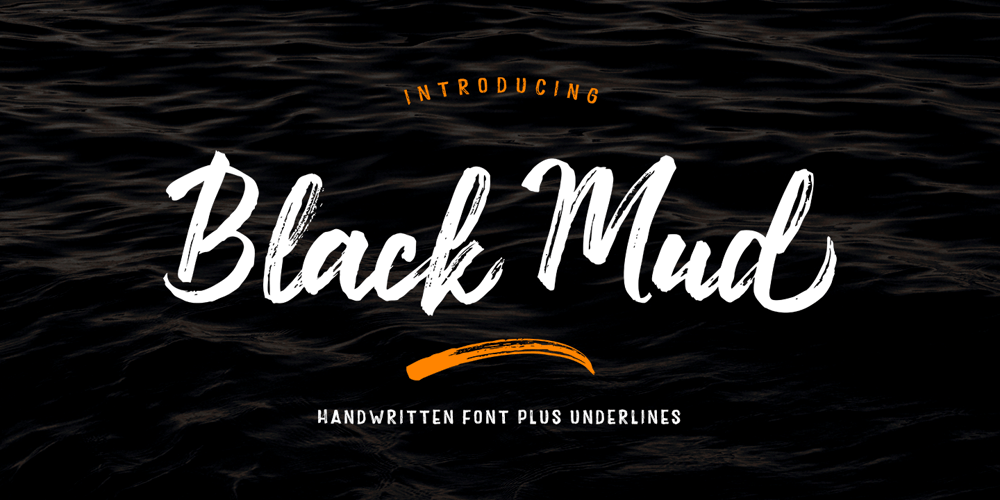
Black Mud Font Family was designed by Yur Lis and published by Stripes Studio. Black Mud contains 2 styles and family package options. Black Mud a new font that is brushed is very attractive with a natural, detailed and perfect texture, also has an additional Black Mud Underlines.Perfect for brand projects, logos, product packaging, posters, invitations, greeting cards, news, blogs, everything including personal charm etc.